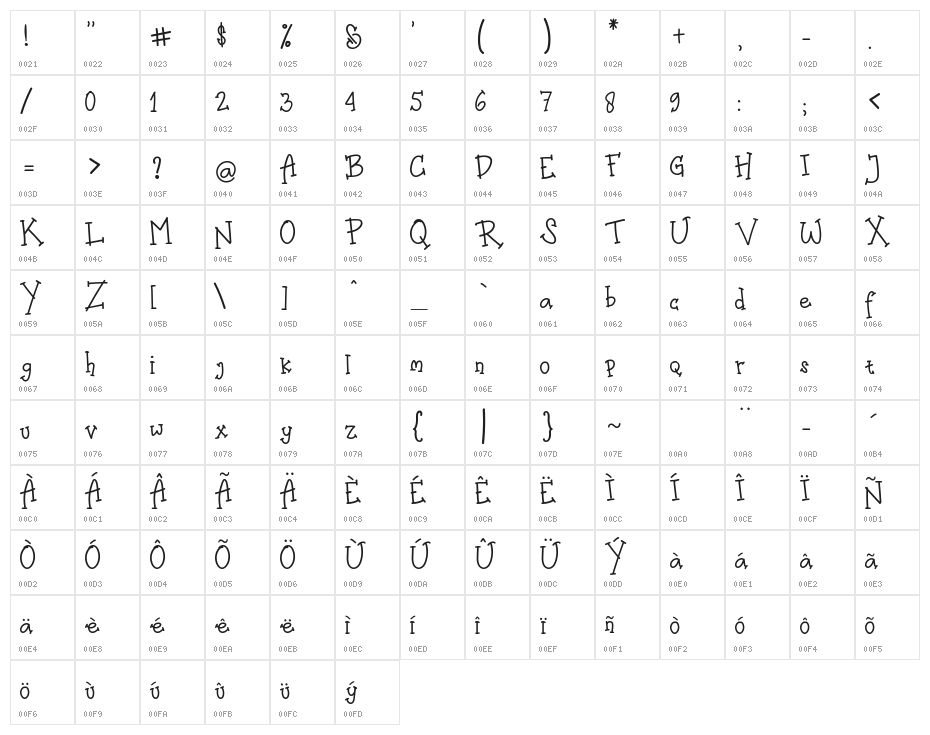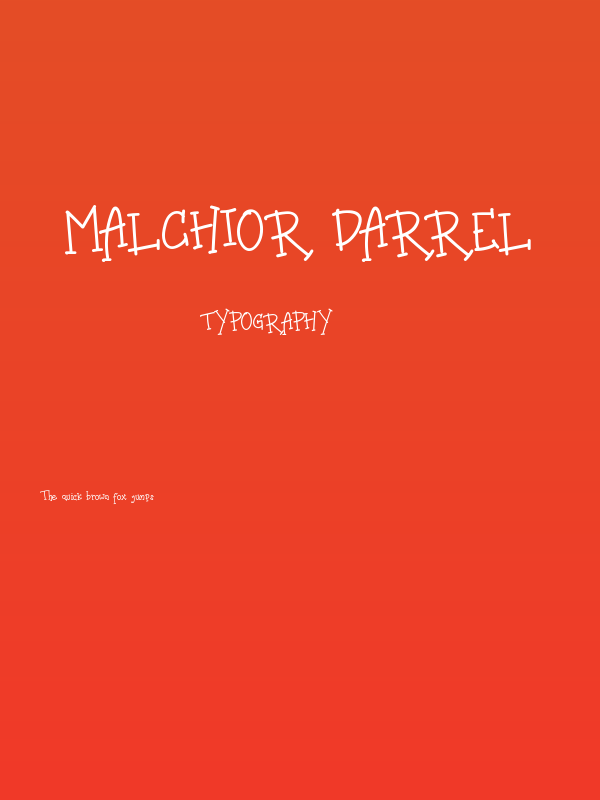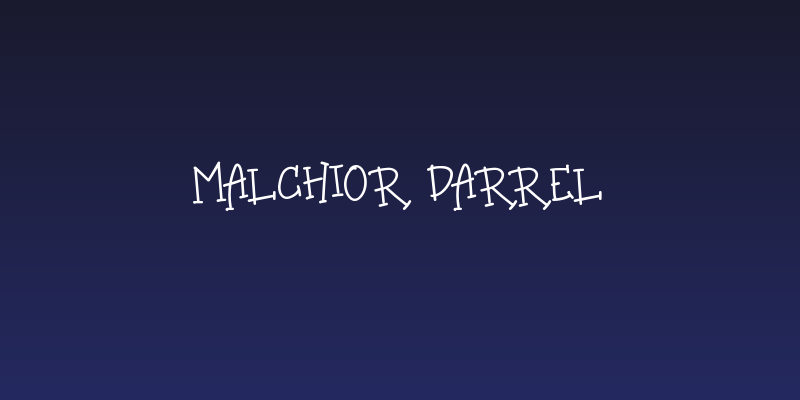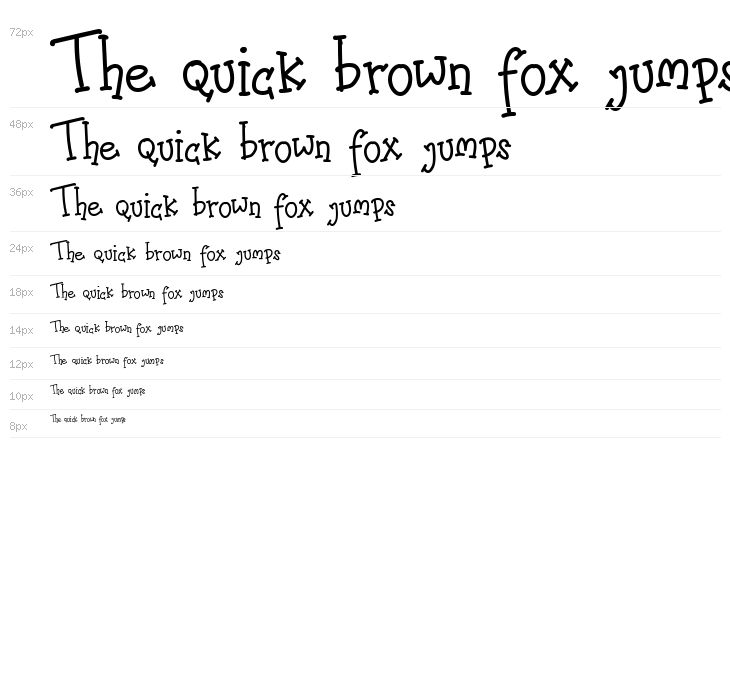
Malchior Darrel Font
Malchior Darrel Description
This font features a playful and whimsical style, characterized by its irregular, hand-drawn appearance. The letters have a casual, informal look with uneven strokes and a slightly tilted orientation, giving it a dynamic and energetic feel. The uppercase and lowercase letters maintain a consistent style, with rounded edges and varying stroke thicknesses that add to its charm. The numerals and special characters follow the same playful design, making this font suitable for creative and fun projects.
| Proposed Projects | Ideal for children's books, greeting cards, playful branding, and creative posters. |